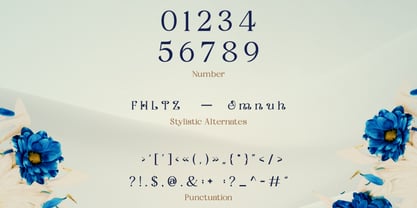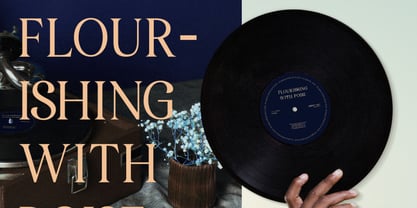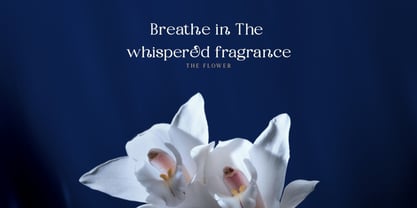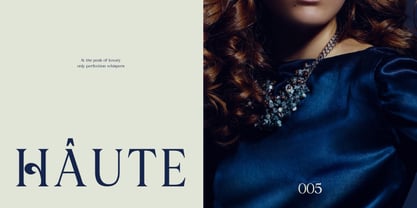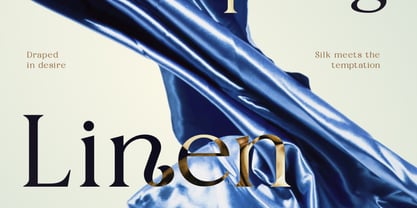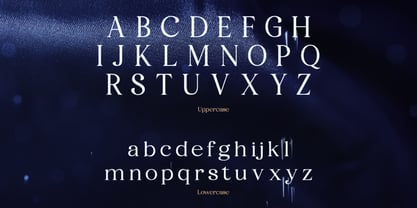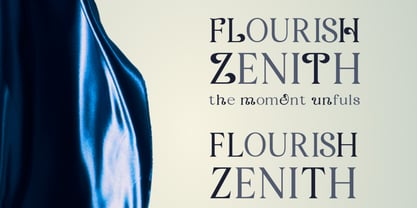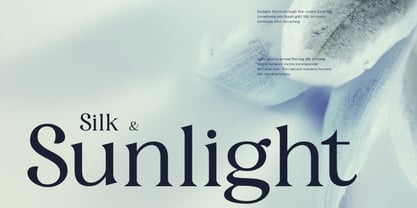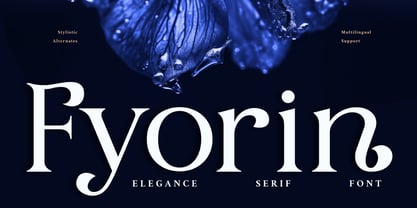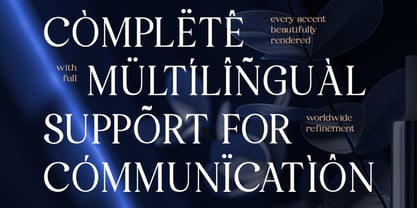
Fyorin
by Rasio Studio
The Fyorin Font Family was designed by Fajar Indra and published by Rasio Studio. Fyorin contains 1 styles. More about this family
Fyorin is a refined and modern display serif that blends classic charm with contemporary grace. Its sculpted letterforms and high-contrast strokes exude sophistication, creating a luxurious and editorial presence in any layout. The font features stylistic alternates and multilingual support, giving designers expressive flexibility while maintaining timeless elegance.
Perfectly balanced between sharp serifs and flowing curves, Fyorin delivers an artistic yet professional aesthetic that suits modern branding and refined visual projects. Relevance and Use Cases is perfect for luxury branding, editorial magazine layouts, fashion campaigns, perfume packaging, logo design, wedding invitations, and creative posters that require a refined and elegant serif touch.